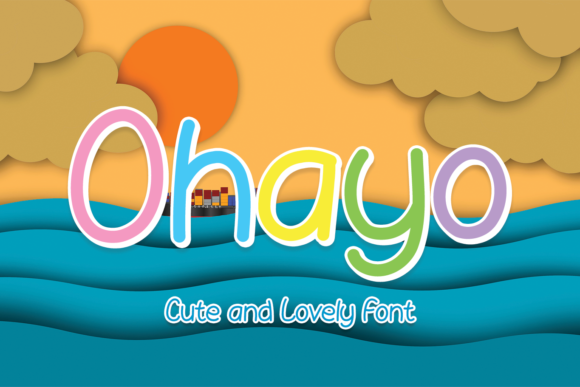
Dive into the world of Ohayo Font, a captivating handwritten script font that brings warmth and personality to your designs. This enchanting font, crafted by the talented el hotcig, exudes charm and playfulness, making it the perfect choice for adding a touch of uniqueness to your projects.
With its sweet and simple letterforms, Ohayo Font captures the essence of handwritten elegance, evoking a sense of nostalgia and authenticity. Its full of life style adds a touch of whimsy and joy, making it an ideal font for expressing your creativity.
Whether you're a law firm looking to create a welcoming and approachable website, a blogger seeking to add a personal touch to your content, or a designer seeking a font that adds charm to your invitations, Ohayo Font is the perfect choice. Its versatility and adaptability make it suitable for a wide range of applications, allowing you to create captivating designs that leave a lasting impression.